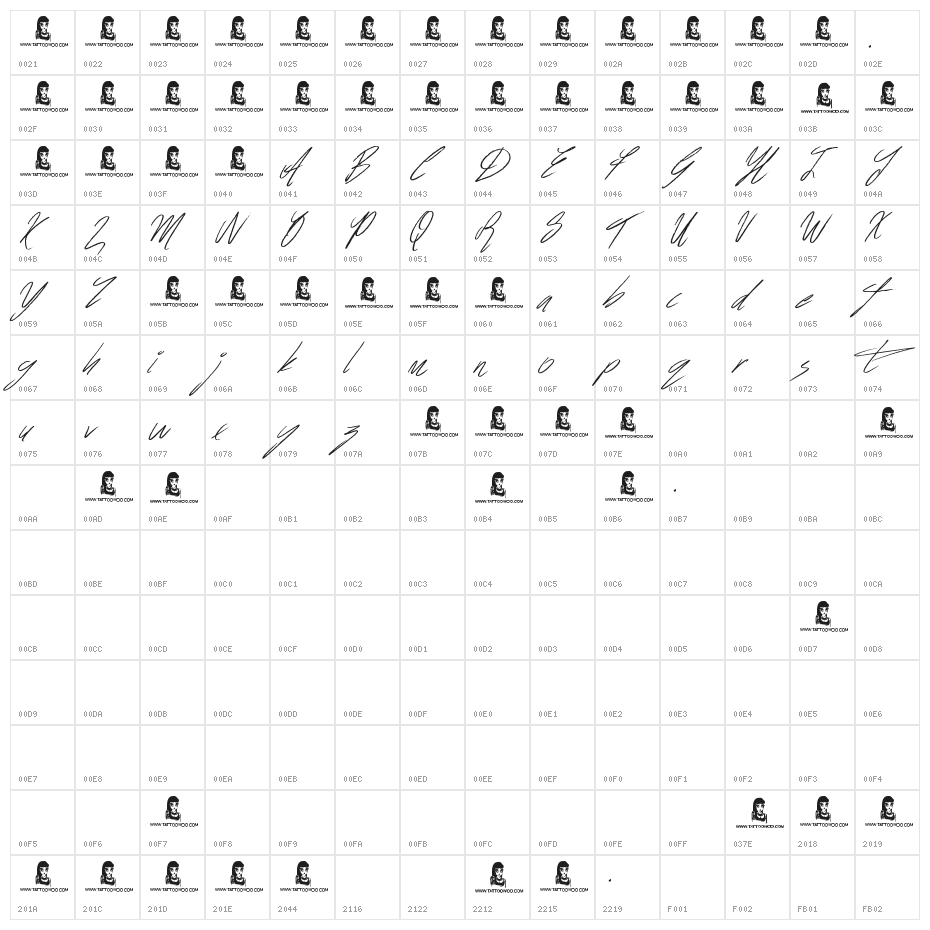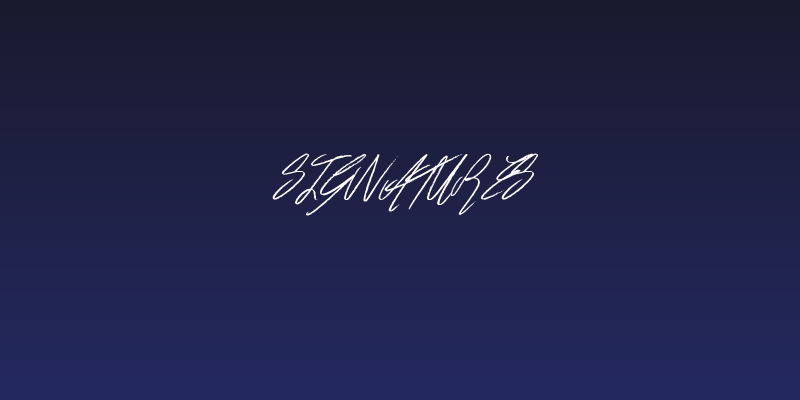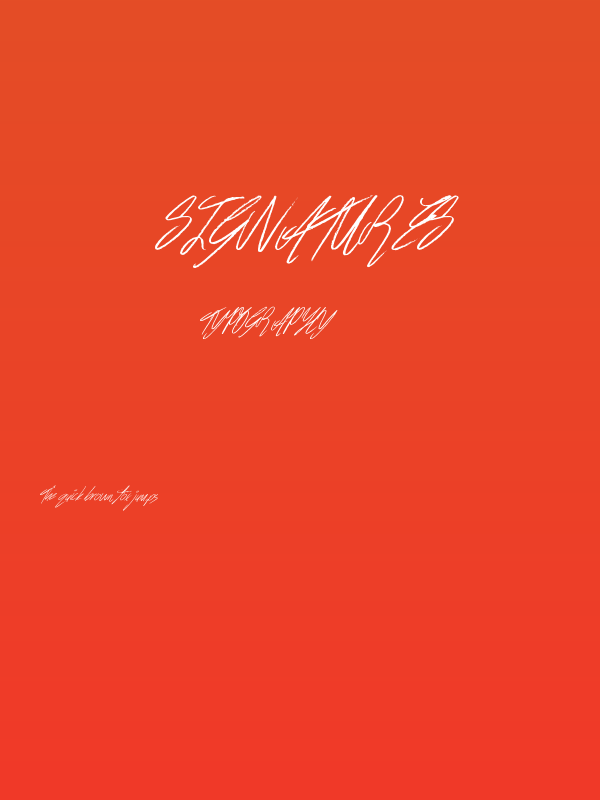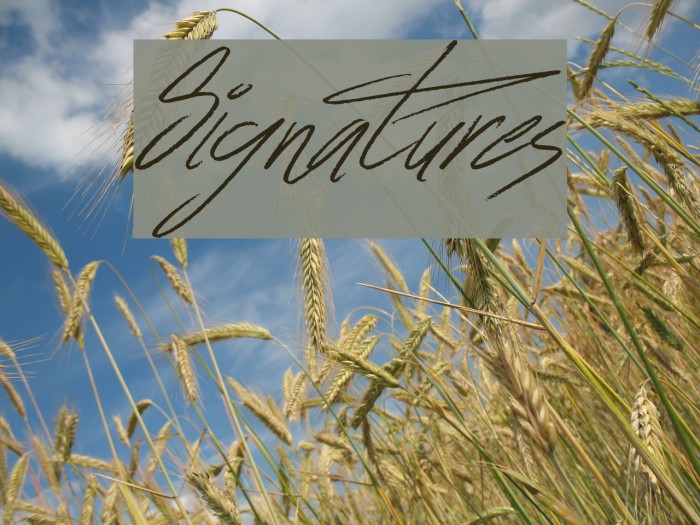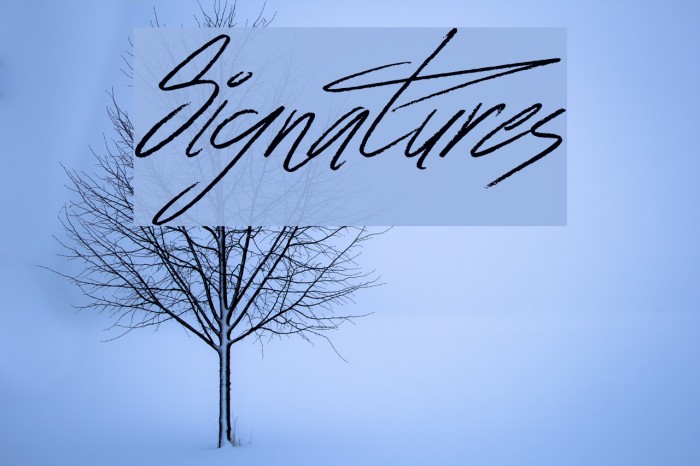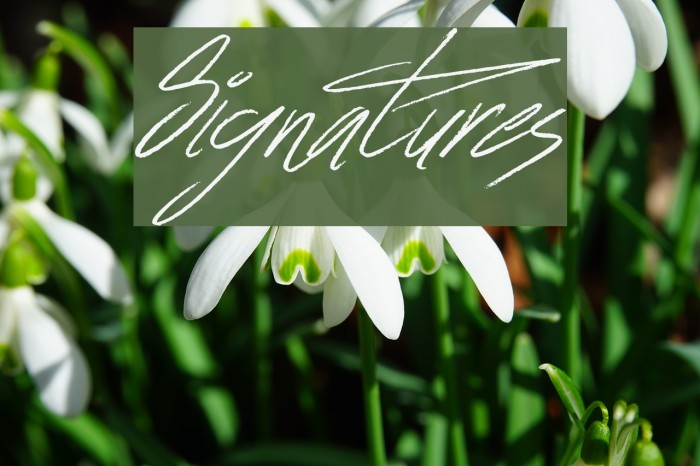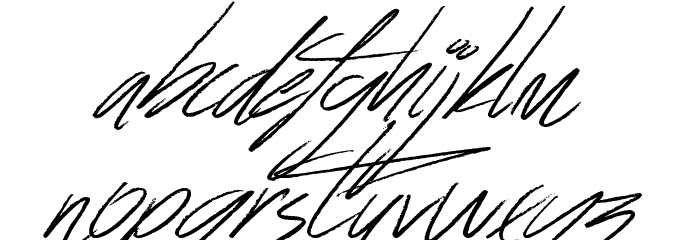
Signatures Font
Signatures Description
This font features a dynamic and expressive handwritten style, reminiscent of personal signatures. The letters are fluid and connected, with varying stroke widths that add a sense of movement and individuality. The uppercase and lowercase letters maintain a consistent slant, enhancing the cursive appearance. The overall design is informal yet sophisticated, making it suitable for projects that require a personal touch. The font's unique character is further emphasized by its irregular baseline and varying heights, which contribute to its authentic handwritten feel.